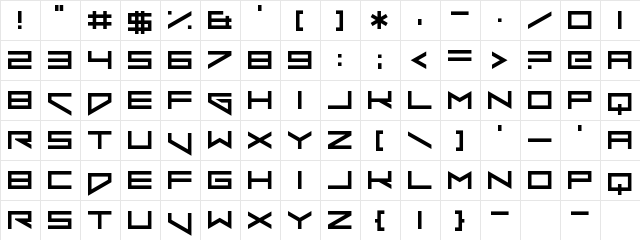
Xero's Punishment Regular Font Preview
Xero's Punishment Regular
Xero's Punishment Regular Font Details
Design Context for Xero's Punishment Typeface
Xero's Punishment is a composed and adaptable typeface that performs quietly and consistently across a wide range of design contexts.
Pro Tip: Use Xero's Punishment in both headline and body roles to test its range before committing to a single application.